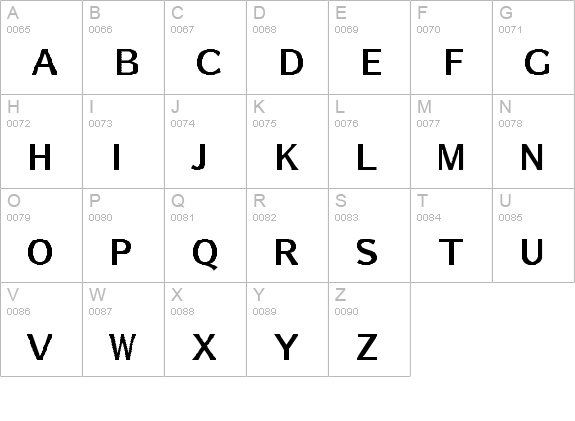
Title-Bold Font Details
Title-Bold is a strong, high-contrast variant in the Title typeface family \xE2\x80\x94 well suited to headlines, attention-grabbing titles, and strong calls-to-action.
Title-Bold is a remarkable font that exudes boldness and confidence in every character. With its strong and commanding presence, this font is perfect for headlines, titles, and any design project that requires a touch of power. The clean and sharp lines of Title-Bold make it easy to read, ensuring that your message will be conveyed with clarity and impact. But what sets Title-Bold apart from other fonts is its availability for free download at FontsMarket.com. Yes, you read that right – this incredible font is freely accessible to all designers, creatives, and enthusiasts looking to enhance their projects with a touch of boldness. FontsMarket.com, a trusted and reliable source for high-quality fonts, offers this gem of a font without any cost, making it a valuable addition to your font collection. Whether you are designing a striking poster, creating an eye-catching logo, or crafting an engaging website, Title-Bold will elevate your designs to new heights. Its sleek and modern aesthetic combined with its free availability makes it an irresistible choice for designers of all levels of expertise. So why wait? Take advantage of the opportunity to download Title-Bold for free at FontsMarket.com and unlock the potential of this extraordinary font. Add a touch of boldness to your designs and make a lasting impression with Title-Bold – a font that combines power, versatility, and accessibility all in one.